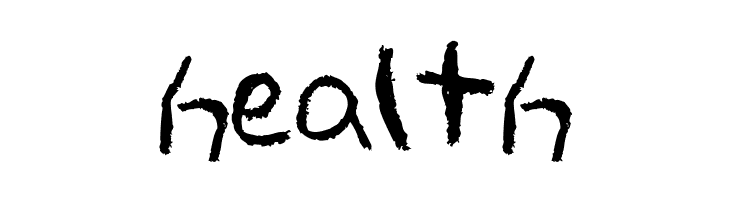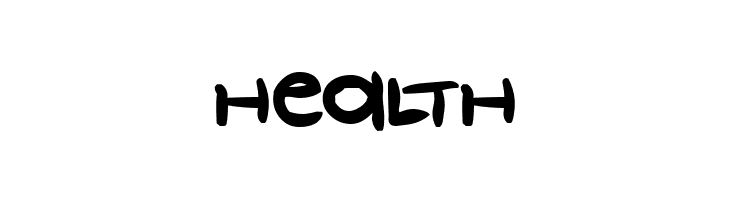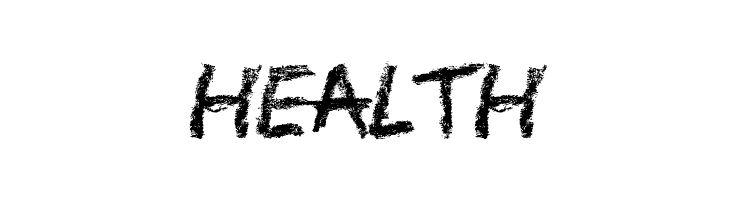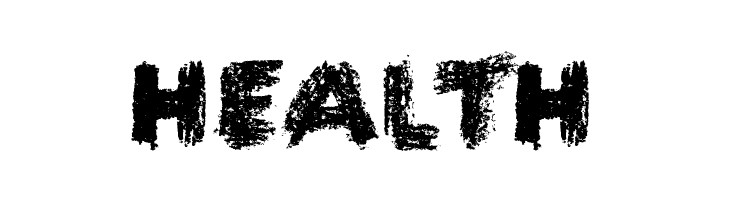
CrayonL Font
A playful, cursive-like font with decorative loops and swirls.
Crayonnette Font
A whimsical and decorative font with playful curls and swirls.
Crayon Normal Font
A playful, crayon-like font with a hand-drawn, whimsical style.
CrayonE Font
A playful, whimsical script font with interconnected, flowing letters.
DK Crayon Crumble Font
A playful, crayon-like font with a hand-drawn, textured appearance.
crayon Font
A playful, hand-drawn font with a crayon-like appearance and thick, rounded strokes.
Colored Crayons Font
A playful, textured font resembling crayon drawings, ideal for creative projects.
Billy Bear's Crayons Font
A playful, crayon-like font with a textured, handcrafted appearance.
Black Crayon Font
A textured, crayon-like font with a playful and artistic style.
KidTYPE-CrayonA Font
A playful, crayon-like font with a hand-drawn, childlike aesthetic.
crayon kids Font
A playful, hand-drawn font with a whimsical, childlike style.
Crayon Hand Regular 2016 Demo Font
A playful, textured font with a crayon-like, handcrafted appearance.
Smudgie Crayon Font
A playful, crayon-like font with textured, hand-drawn strokes.
KR Crayons Font
A playful font with letters integrated into crayon illustrations, perfect for creative projects.
DK Leftover Crayon Regular Font
A playful, textured font with a crayon-like appearance.
CF Crayons Regular Font
A playful, hand-drawn font with a crayon-like texture.
DK Nouveau Crayon Regular Font
A playful, textured font with a crayon-like, hand-drawn appearance.
Fun Crayon Font